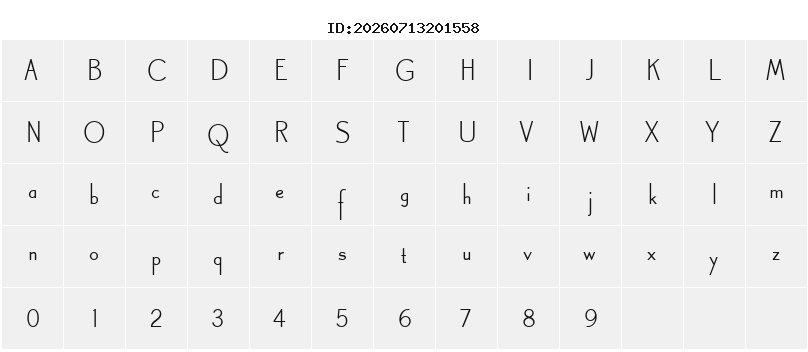
• Font Name: Canterbury Sans RR
• Full Font Name: Canterbury Sans RR Medium
• Designer: Steve Jackaman
• Manufacturer: Rabbit Reproductions Typefoundry
About Canterbury Sans RR.ttf
Canterbury Sans RR.ttf is a modern, elegant sans-serif font designed for ultimate readability and visual harmony. Perfect for branding, headlines, web design, and print materials.